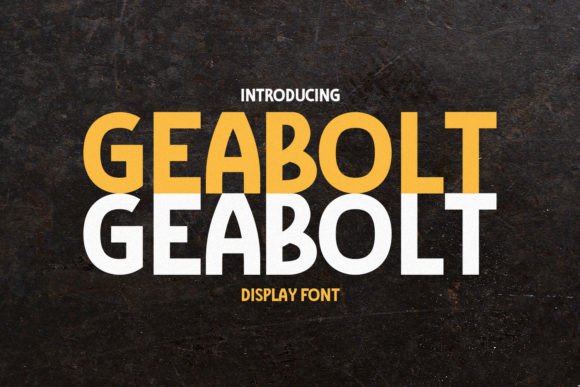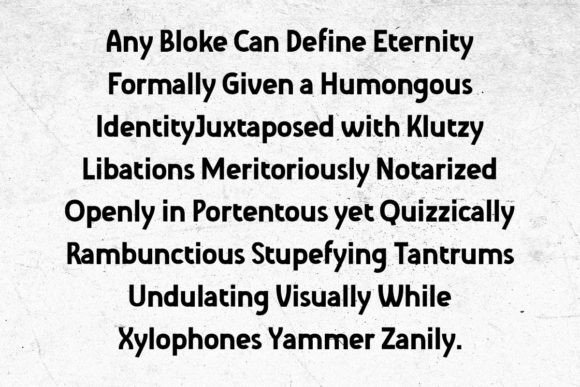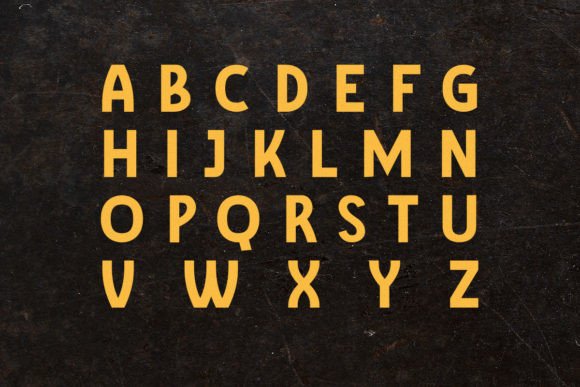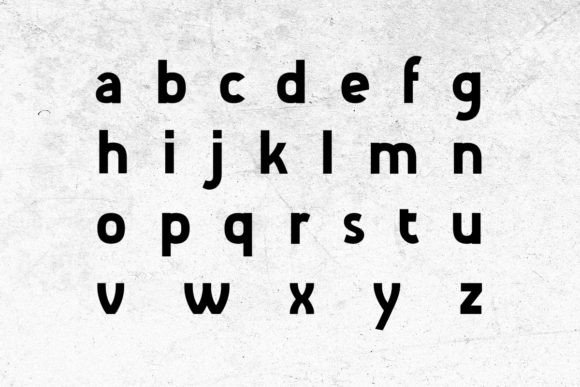
Geabolt Font: Bold Industrial Typeface for Vintage Logo Design
About the Geabolt Font
Presenting Geabolt Font, a unique and stylish typeface that will make your work stand out. Geabolt is an industrial typeface with a masculine style, suitable for your design needs that need a classic, vintage touch, but still modern. This font is perfect for any logo, product label, poster, or design.
Geabolt’s strong, geometric forms make it ideal for headlines, branding applications requiring a bold statement, and short-form content like posters or packaging. Its industrial aesthetic lends itself well to projects with a vintage or mechanical feel, but its clean lines prevent it from appearing dated. Avoid using Geabolt for body text or lengthy paragraphs; its weight and character spacing are not optimized for readability in extended blocks of text. Also, it’s not suitable for user interfaces (UI) where legibility and screen clarity are paramount.
For effective pairings, consider pairing Geabolt with a clean sans-serif like Montserrat for a modern contrast, or a classic serif like Garamond for a sophisticated, vintage-inspired feel. A playful script font like Pacifico could add a touch of unexpected personality to certain projects, while a geometric sans-serif like Bebas Neue will heighten the industrial feel.
Geabolt projects an image of strength, reliability, and a touch of classic masculinity. It is best suited for brands that value heritage, craftsmanship, or a robust, no-nonsense approach.